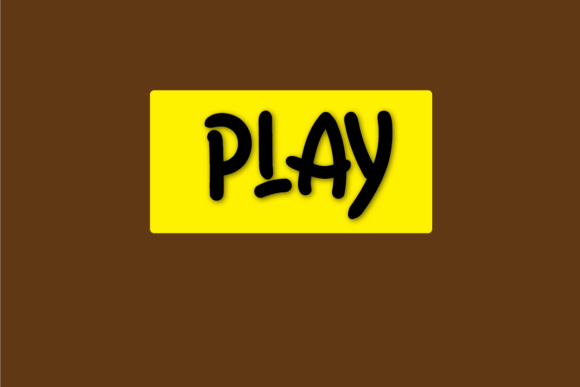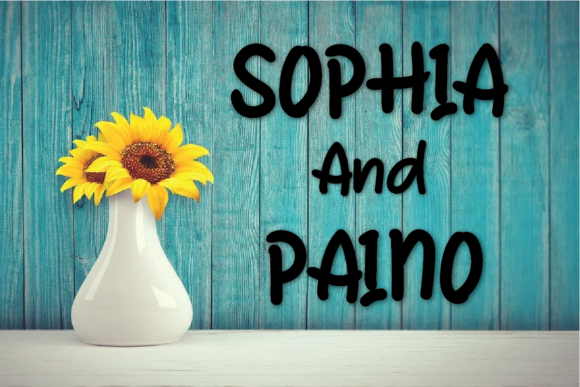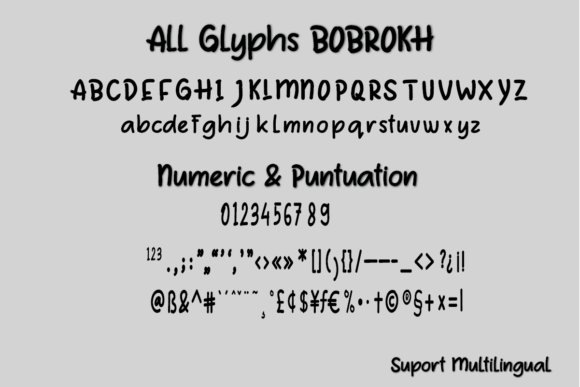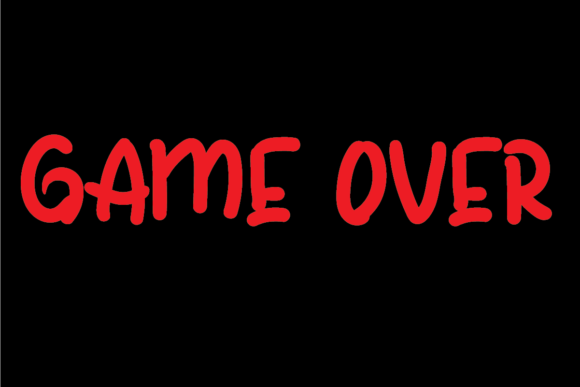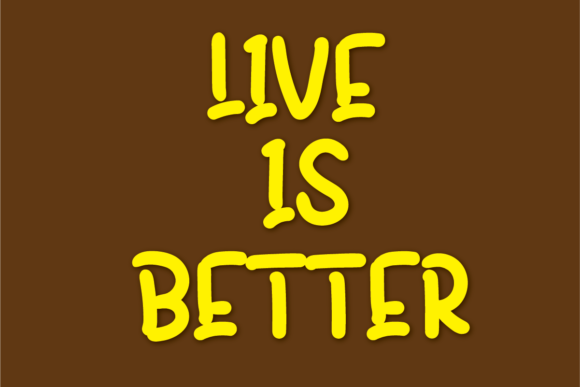
The Bobrokh Font: A Bouncy and Quirky Display Font to Elevate Your Designs
Have you ever been in the middle of a design project, and suddenly, you just can’t seem to find the right font? I recall a particularly frustrating experience while working on a branding project for a trendy new cafe. My client wanted a font that was fresh, fun, and youthful, but everything I tried seemed to fall flat. That’s when I stumbled upon the Bobrokh font, and it completely transformed my design.
An Honest Review of Bobrokh Font
So, what makes Bobrokh so special? Let’s dive into the good stuff and a few quirks I’ve noticed.
What I Love About Bobrokh Font
- ✨ Bouncy and Quirky Personality: Bobrokh has a unique, energetic vibe that instantly adds a playful touch to any design.
- ✅ Contemporary Look: Its clean lines and modern aesthetic make it perfect for designs that need to feel current and trendy.
- 🌈 Versatility: Whether you’re working on a poster, a logo, or a social media graphic, Bobrokh can adapt to various design needs.
While Bobrokh is an amazing font, there are a couple of things to keep in mind:
- 🤔 Legibility at Small Sizes: Like many display fonts, Bobrokh can become a bit tricky to read at smaller sizes. It’s best used for headlines or large text.
- ⚠️ Overuse: Because it’s so fun and quirky, it’s easy to overuse Bobrokh in a single design. Balance is key to making your design pop without becoming overwhelming.
Similar Fonts or Alternatives to Bobrokh
If you love Bobrokh, you might also enjoy these similar fonts:
- Pacifico: A beautiful, modern script font with a friendly vibe. Use it for designs that need a bit of elegance.
- Great Vibes: A fun, energetic script that’s great for headlines. It’s perfect for designs that need a playful kick.
- Lobster: A classic, elegant script that works well for formal or sophisticated designs.
- Rock Salt: A charming, hand-salted font that’s ideal for adding a rustic touch to your designs.
The Backstory of Bobrokh Font
While the origins of Bobrokh might not be well-documented, it’s clear that it was designed with creativity and fun in mind. The designer likely aimed to create a font that breaks the mold of traditional typography, offering something fresh and exciting for designers.
Q: What type of projects is Bobrokh best suited for?
Bobrokh is ideal for projects that need a fresh, contemporary touch. It’s perfect for posters, social media graphics, logos, and any design where you want to make a bold statement.
Q: Is Bobrokh available in different weights or styles?
Bobrokh’s versatility is one of its strengths. While it might not have multiple weights, its unique style makes it adaptable to various design needs. You can always experiment with size, color, and effects to achieve the desired impact.